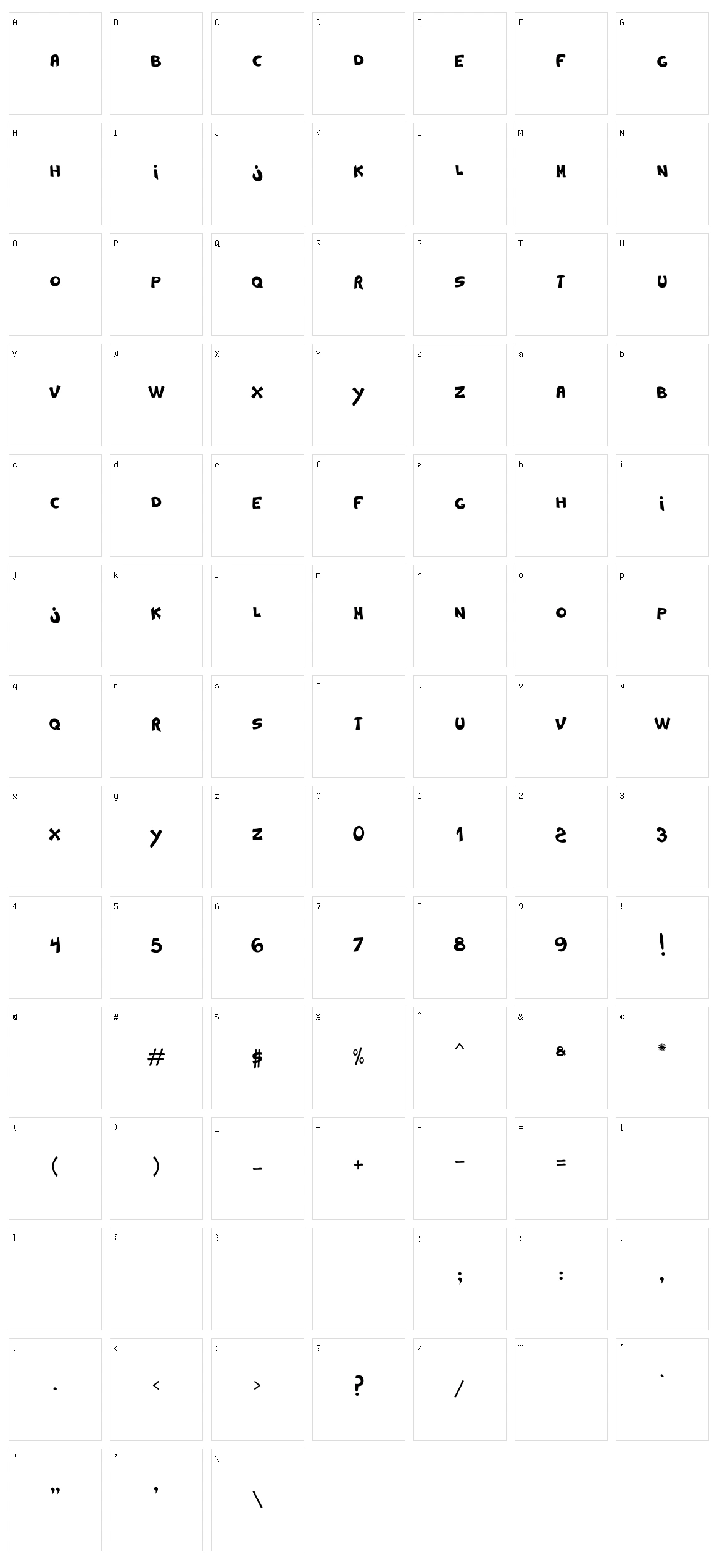
The free font Marisol is carefully designed by Pilar Celda, showcasing a thoughtful balance of creativity and usability and falls under the Cartoon font style. When you download the ZIP file, it contains only 15.45 KB of font files, making it lightweight and quick to download. Please review the license details below to understand permitted usage and distribution rights. If license information is not available, we recommend using this font for personal projects only or contacting the author directly for commercial usage permissions.